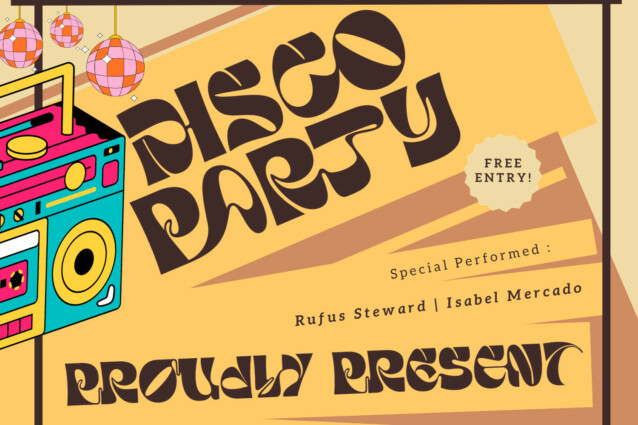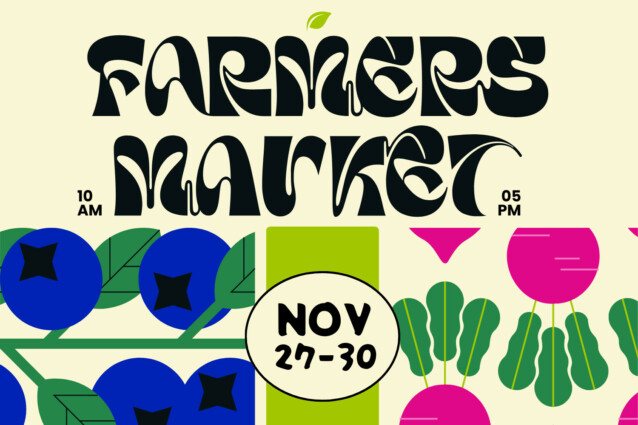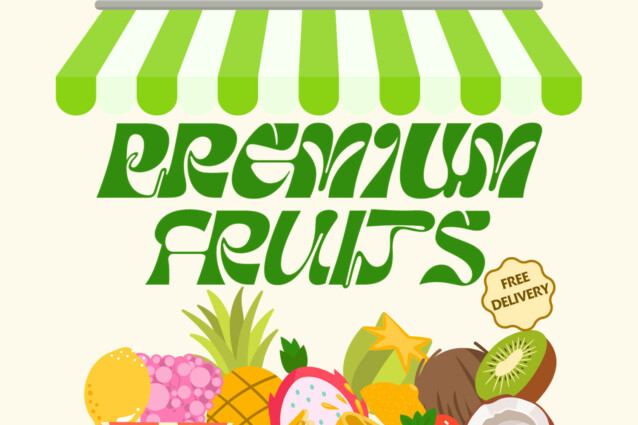
Paranoid Starting Font is a display typeface full of retro power. It’s quirky, groovy, and funky— definitely charming. Bold and thick, a fun typeface to play with! A fun bold Sans Serif typeface featuring characters that stand out from every background. Suitable for logos, stickers, posters, packaging, branding, invitations, notes, etc.
Paranoid Starting was built with OpenType features and includes 100 ligatures, alternate, numbers, punctuation, and it also supports other languages.
AC AD AL AN AR AS AT AU AV BE CA CE CH CO CT DE DI EA EC ED EE EL EM EN EP ER ES ET FE FO FR GE HA HE HI HO IE IC IL IN IO IR IS IT JU KE LA LE LI LL LO LY MA ME MI NC ND NE NG NO NT NS OC OF OM ON OO OP OR OT OU OW PA PR RA RD RE RI RO RS RT SE SH SI SO SS ST TA TE TH TI TO TR TT UM UN UR VE WI WO